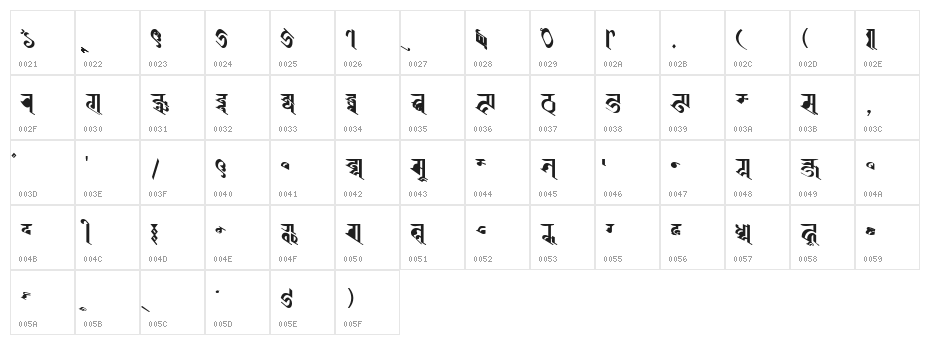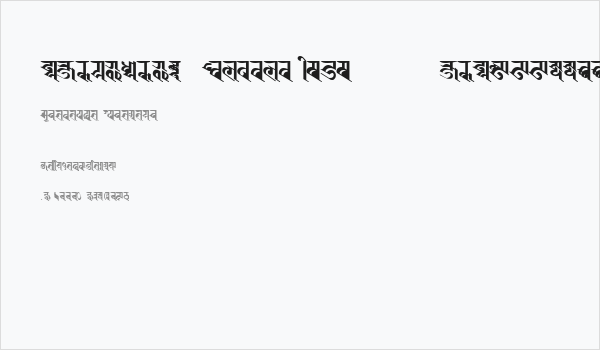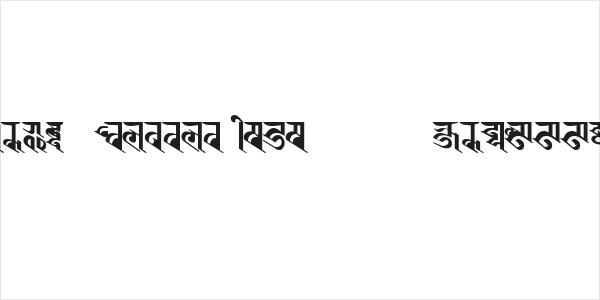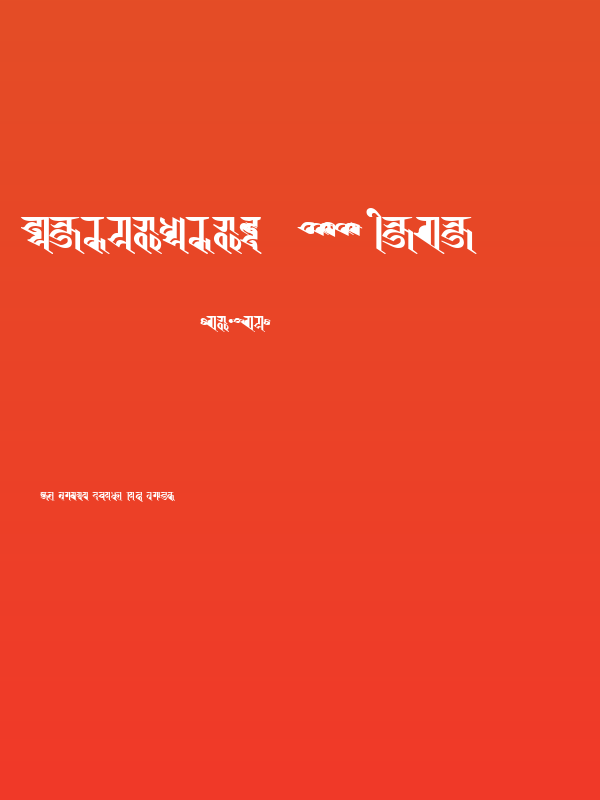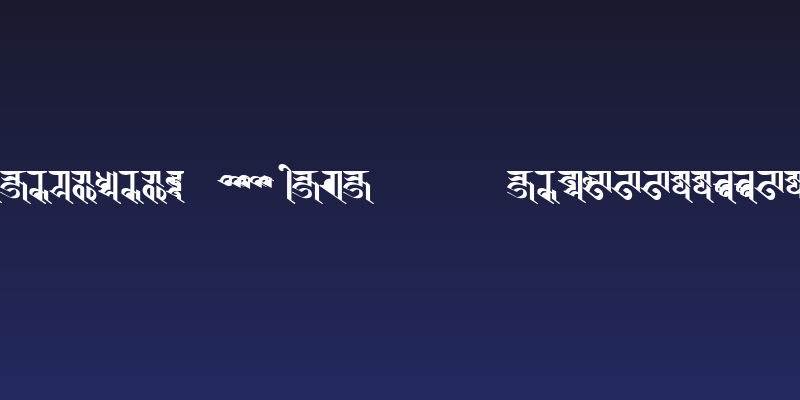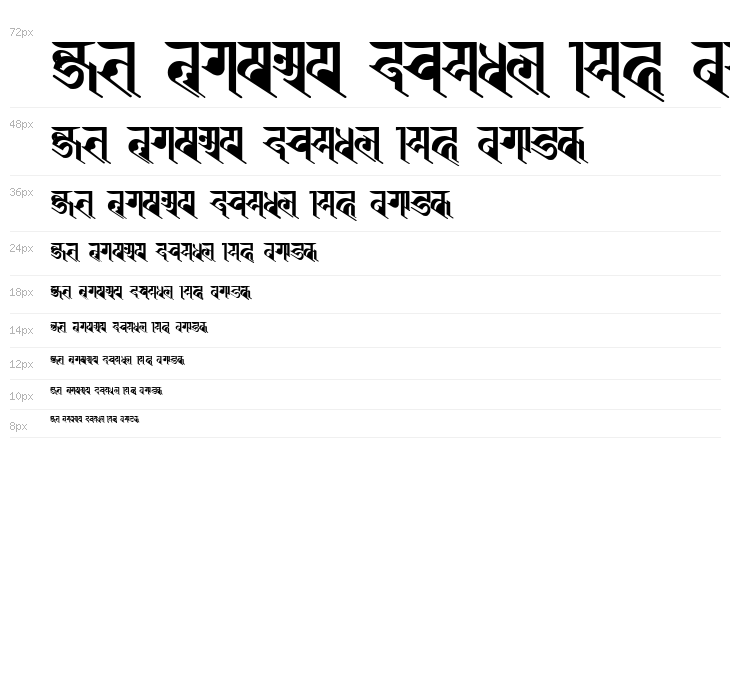
BISHOWSON2 Ranjana Lipi ISBN9993355933 Font
BISHOWSON2 Ranjana Lipi ISBN9993355933 Description
This font features a traditional script style with intricate and flowing characters, reflecting a rich cultural heritage. The characters are ornate, with each letter displaying unique flourishes and embellishments that add to the overall aesthetic. The script is highly decorative, making it suitable for cultural or artistic projects. The strokes are bold and consistent, providing a strong visual impact. The font's design is both elegant and complex, capturing the essence of traditional calligraphy with a modern touch.
Overall StyleTraditional
Use CaseHeadlines, Artistic projects, Cultural publications
Proposed ProjectsIdeal for cultural publications, artistic projects, invitations, and decorative headings.